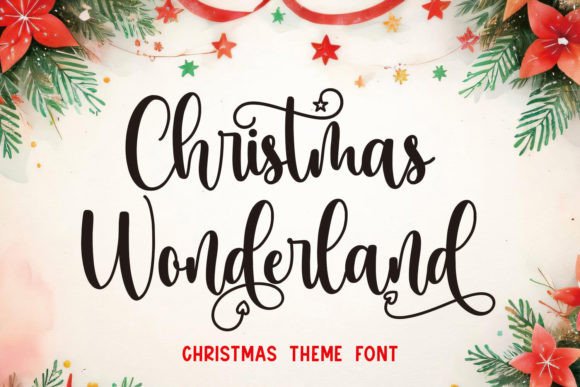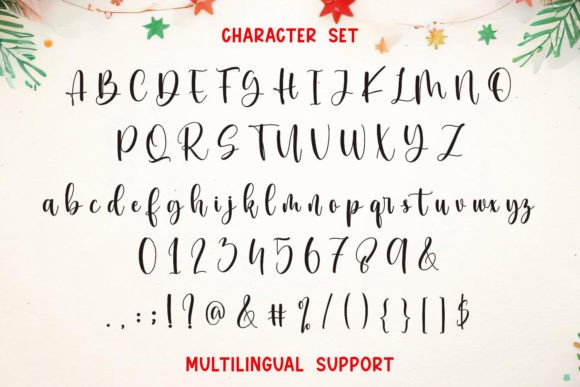
Christmas Wonderland Font
Christmas Wonderland is a delightful script handwritten font designed to encapsulate the essence of the festive season. Its style radiates warmth and whimsy, making it perfect for conveying the spirit of Christmas, holiday cheer, Thanksgiving celebrations, and the joyous essence of the season.
This font exudes a sense of traditional holiday charm and is an ideal choice for various seasonal endeavors, including crafting personalized greeting cards, festive decorations, and ornate lettering for crafts and embroidery projects.
With its elegant strokes and playful yet refined design, the Christmas Wonderland font adds a touch of nostalgia and merriment to any creative endeavor related to Christmas, making it a wonderful choice for evoking a sense of joy and celebration during this special time of year. Its versatility and charm make it a go-to option for capturing the festive spirit across a wide range of design applications.